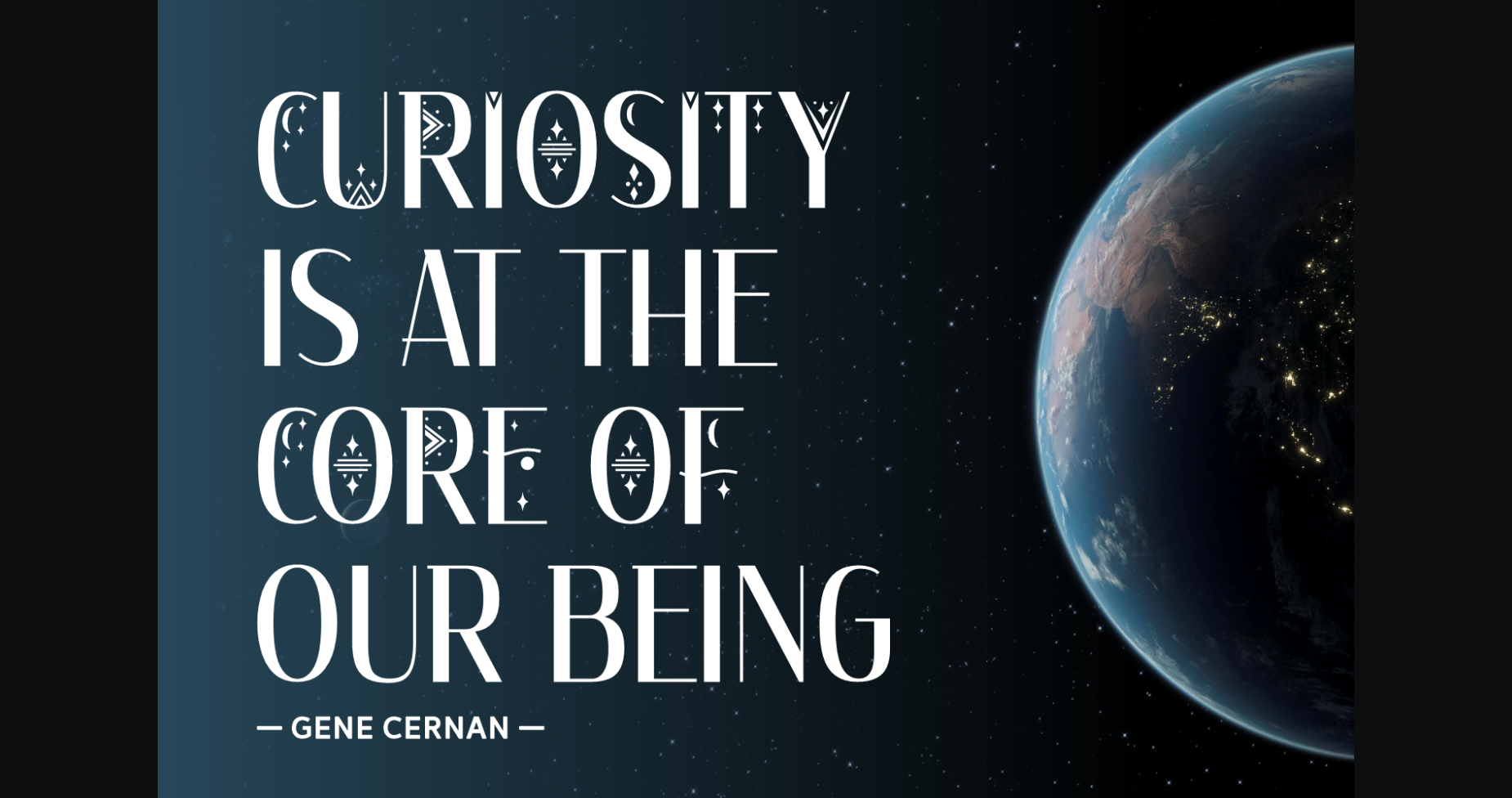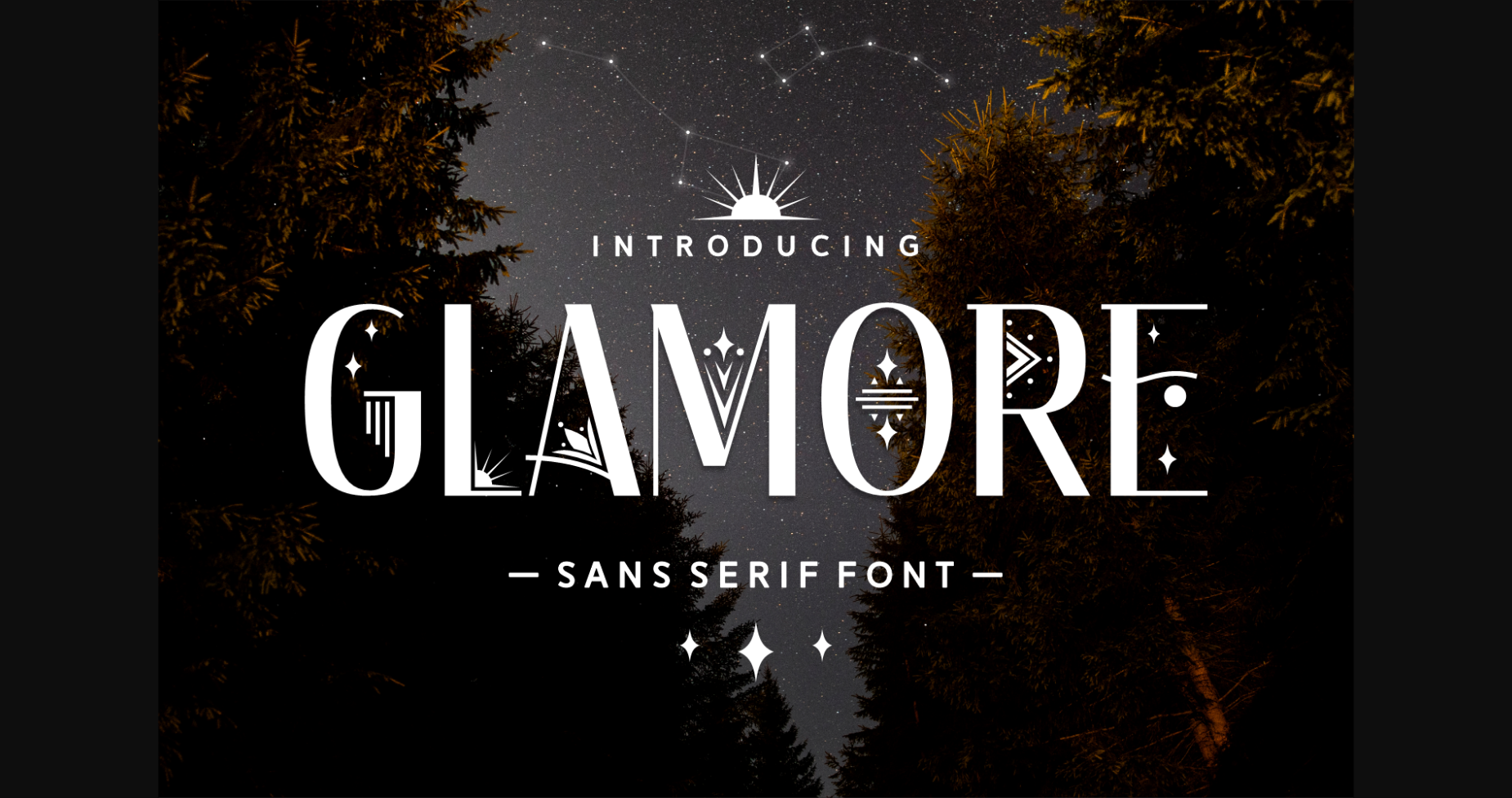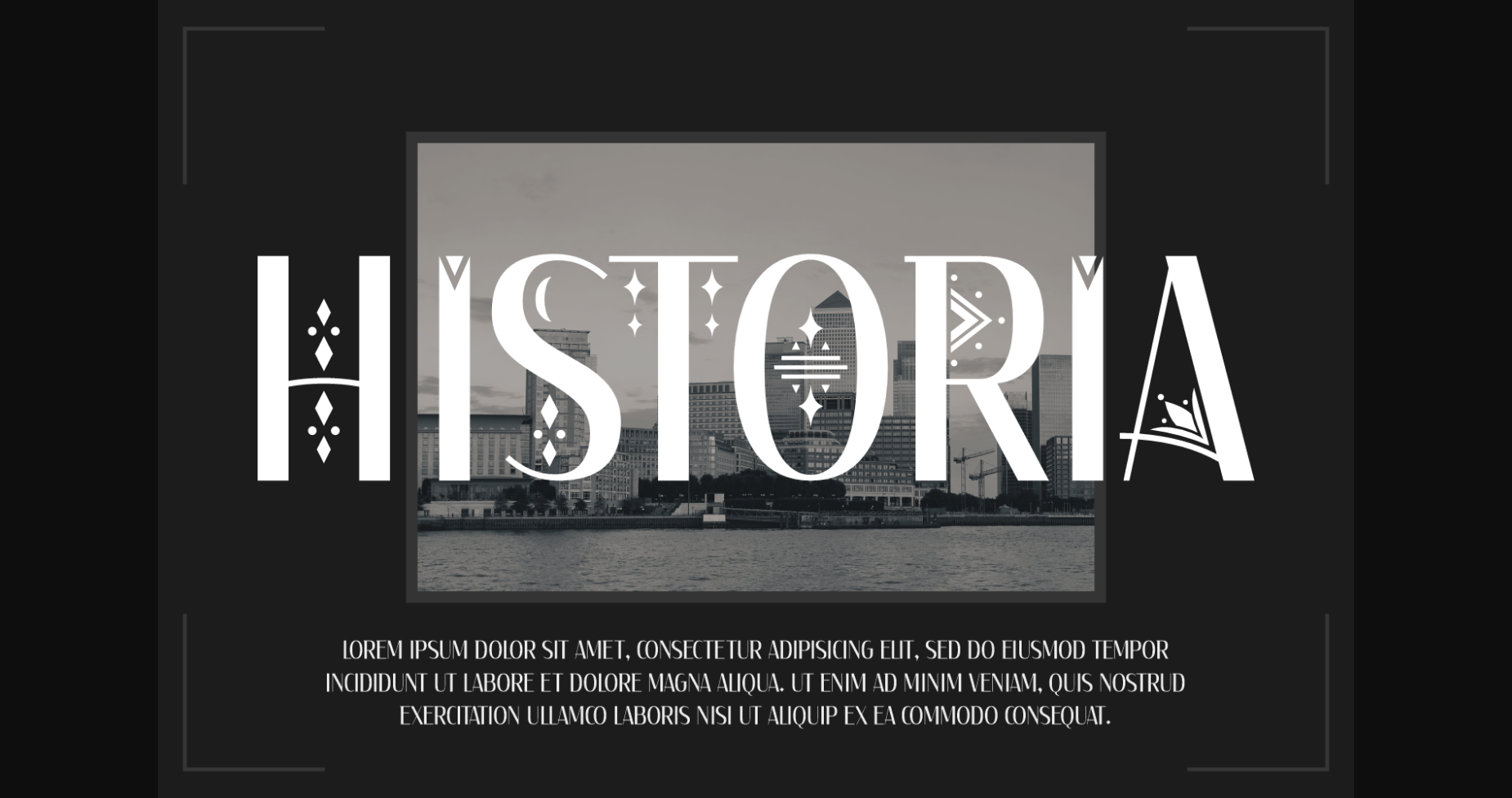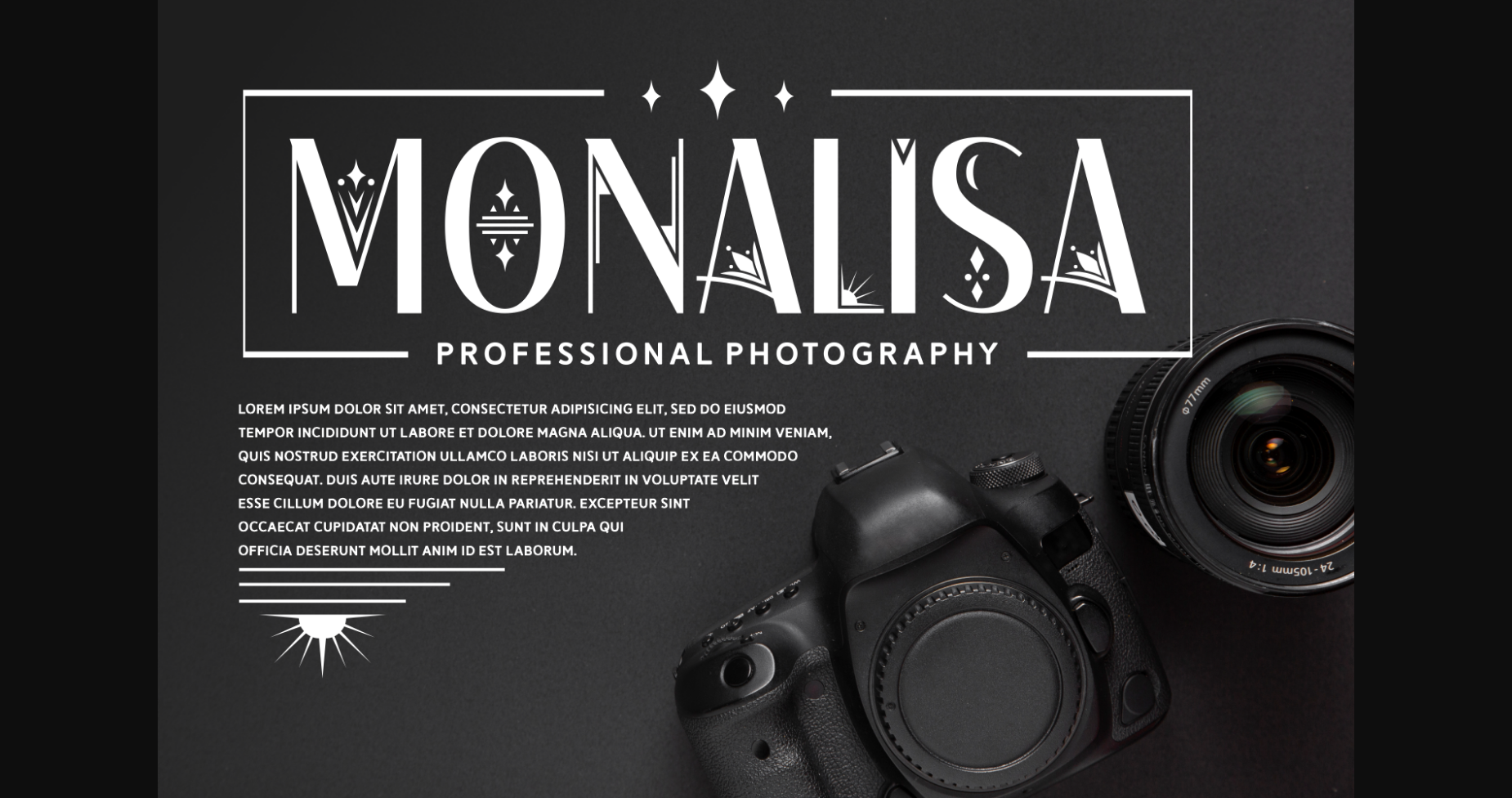
About Glamore Font Font
Glamore is a beautiful and elegant sans serif font. The uppercase letters feature enchanting decorative motifs giving this font its unique charm. Use it to create stunning logos, invitations, greeting cards, fabric prints, and more.